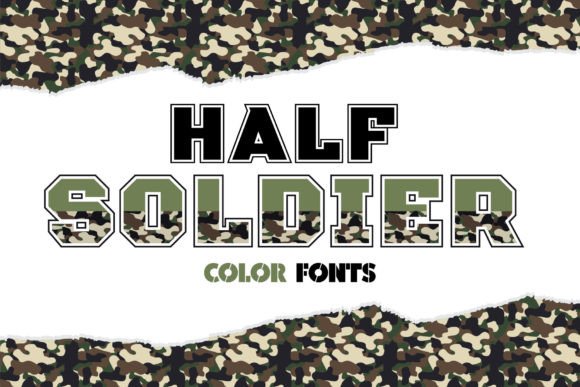
Unlock the World of Captivating Designs with Half Soldier: The Bold and Colorful Font Family
In a world clamoring for distinction, Half Soldier emerges as a typographic masterpiece, ready to transform your creative visions into extraordinary realities. Step into a realm where colors dance harmoniously with shapes, where letters become vibrant brushstrokes, and where your designs radiate an infectious energy that captivates hearts and minds.
Half Soldier is a font family that's anything but ordinary. Brimming with character and bursting with chromatic allure, it's a feast for the eyes, a symphony of hues that ignites the imagination and fuels the creative spirit. Each letter, a carefully crafted work of art, carries the power to elevate your designs, making them stand out from the monotonous sea of conventional fonts.
With Half Soldier, unleash your creativity without boundaries. Whether you're designing eye-catching t-shirts that speak volumes, tote bags that carry stories, hats that exude personality, or stickers that leave a lasting impression, this font family has got you covered. Its versatility knows no bounds, extending to wedding designs that ooze romance, logos that demand attention, cards that convey emotions, and quotes that resonate with the soul.
Half Soldier is a font family that breathes life into your creative endeavors. It's the perfect companion for those who dare to be different, who embrace the unconventional, and who seek to leave an indelible mark on the world through their designs.
Don't settle for ordinary fonts that blend into the background. Choose Half Soldier, the font family that commands attention, evokes emotions, and transforms your designs into captivating masterpieces. Let your creativity soar, let your designs shine, and let Half Soldier be your partner in creating a visual legacy that leaves the world in awe.